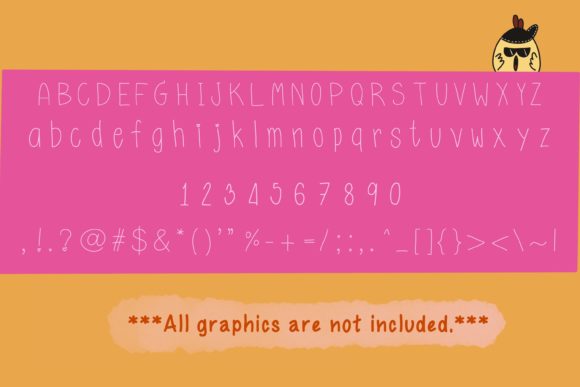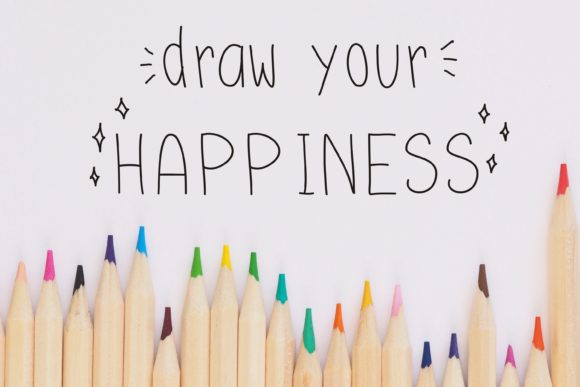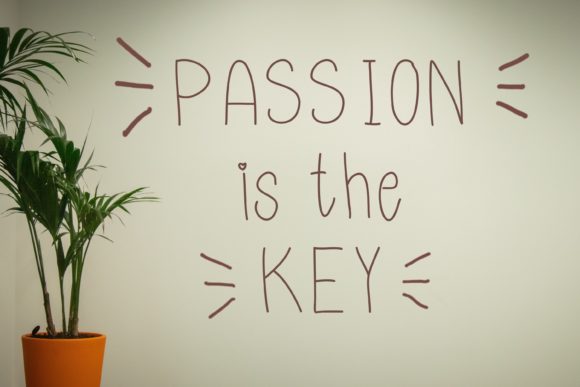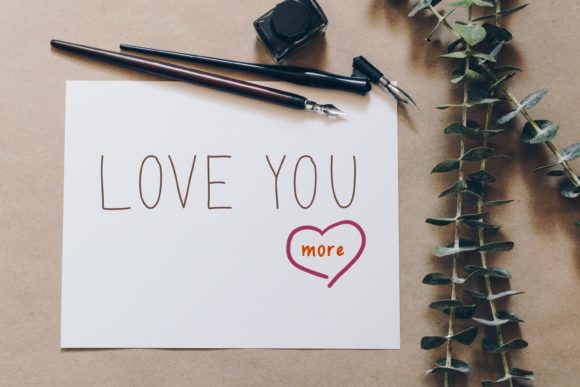
Cute Slim Font
About Cute Slim Font
Cute Slim is a thin and friendly handwritten font. No matter the topic, this font will be an incredibly asset to your fonts’ library, as it has the potential to elevate any creation.